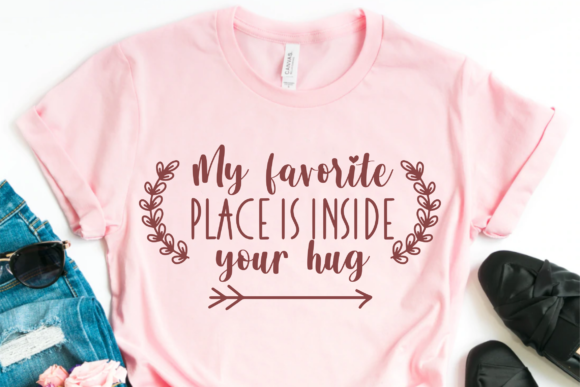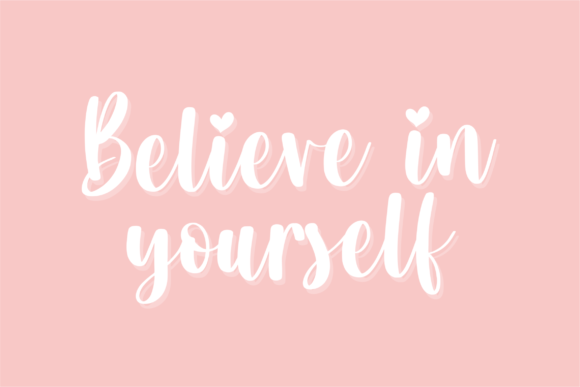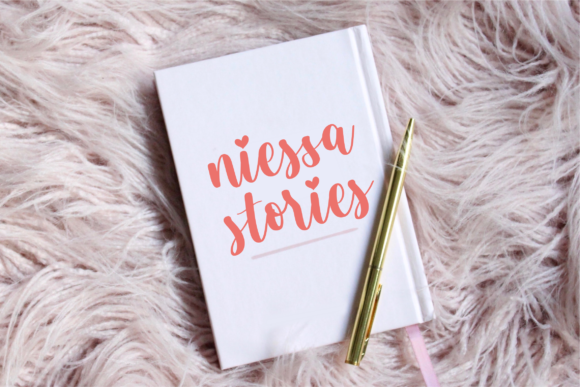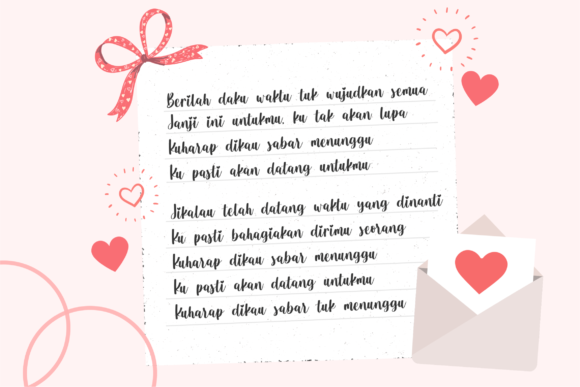
About Aprillica Font
Aprillica is a beautiful and stylish script font.
It is perfect for product packaging, branding project, magazine covers, social media, wedding, or just used to express words above the background.